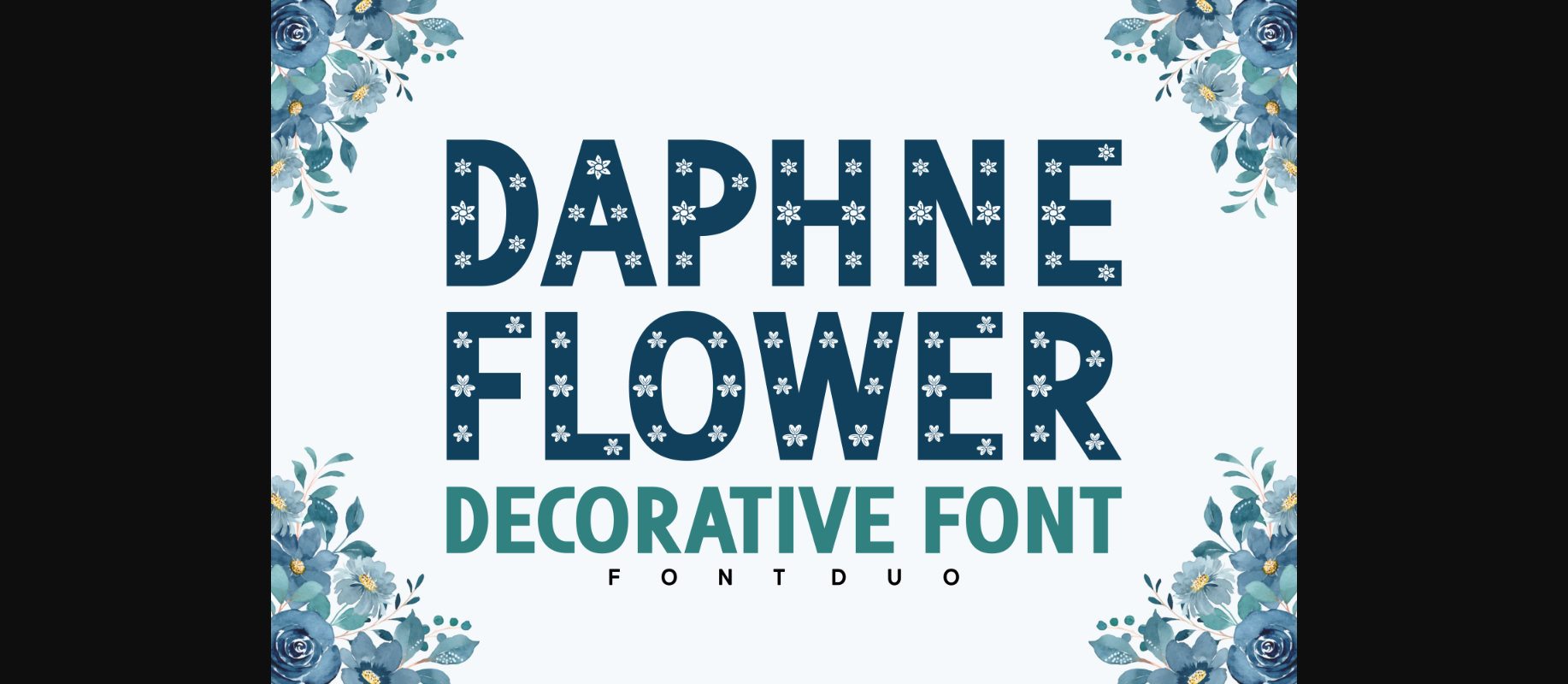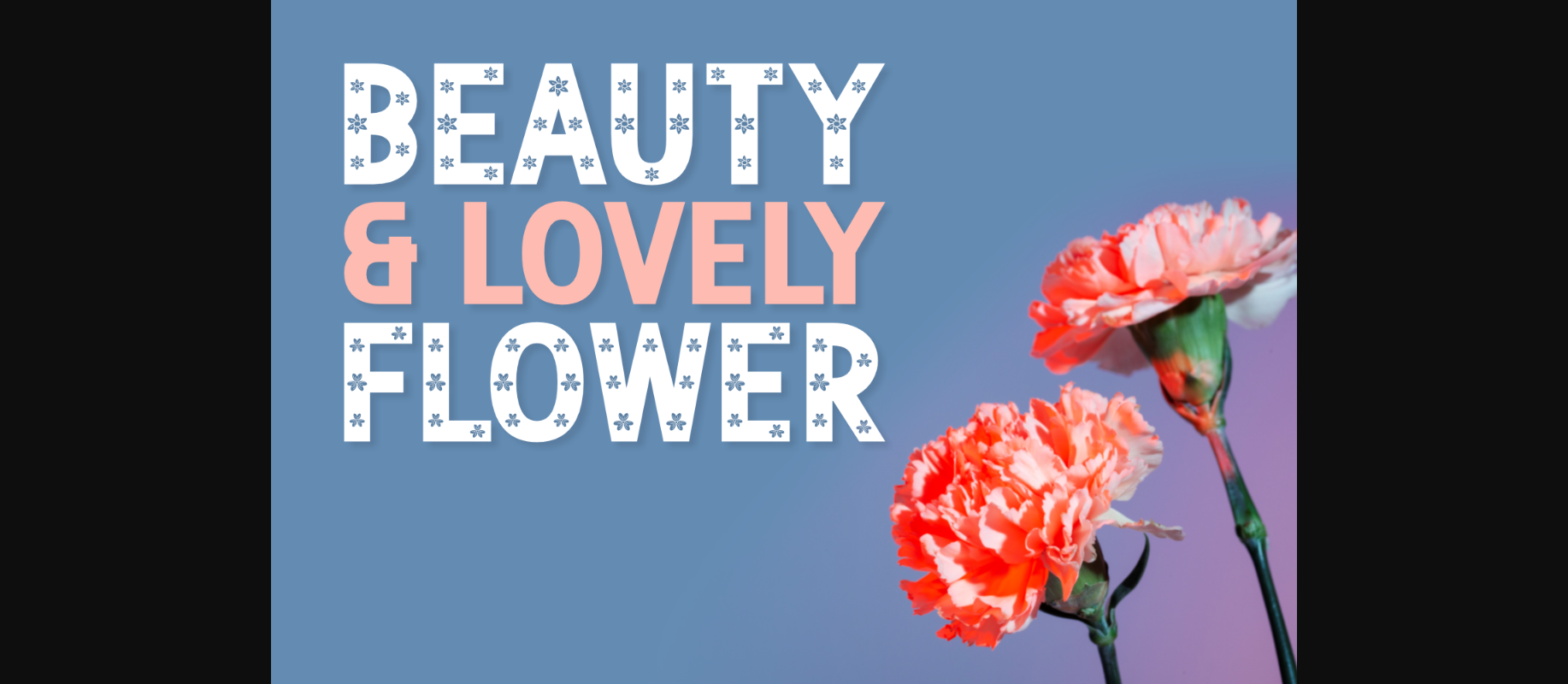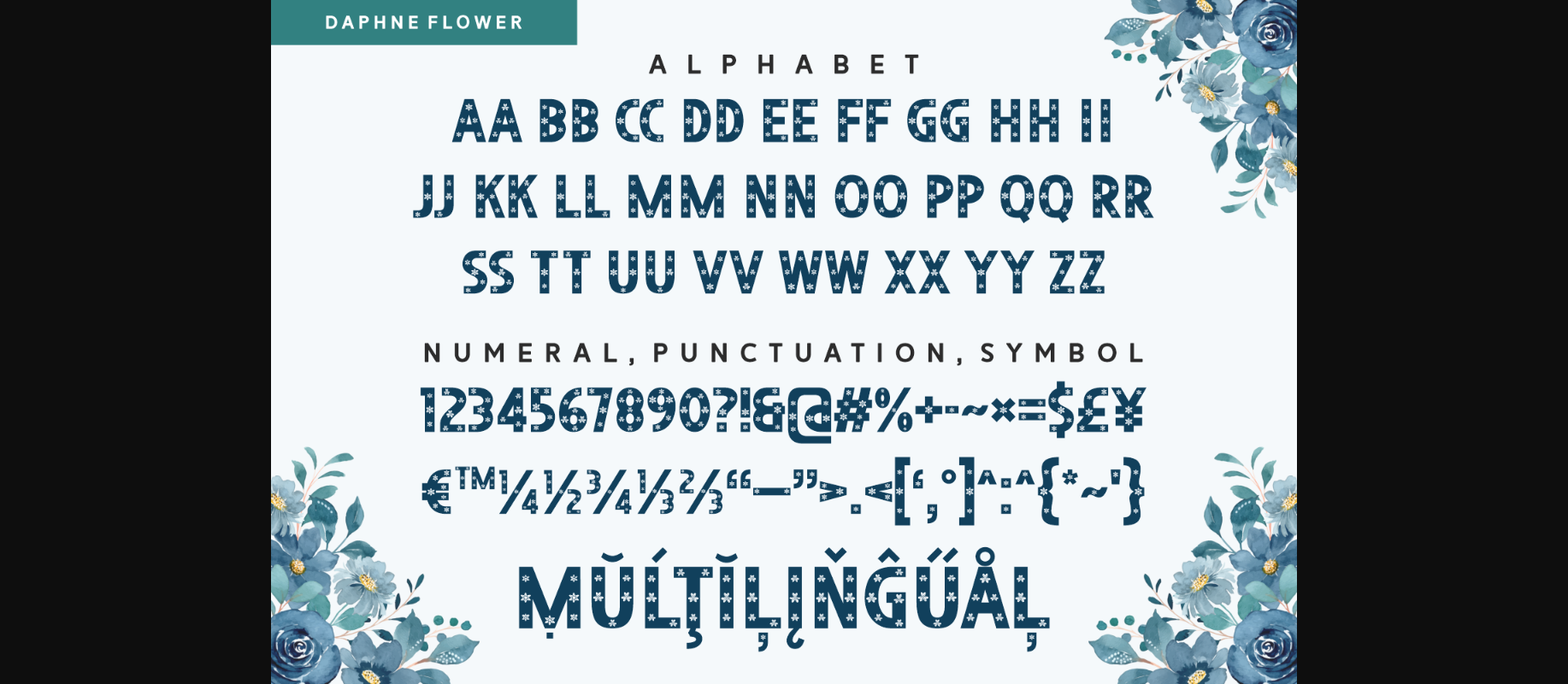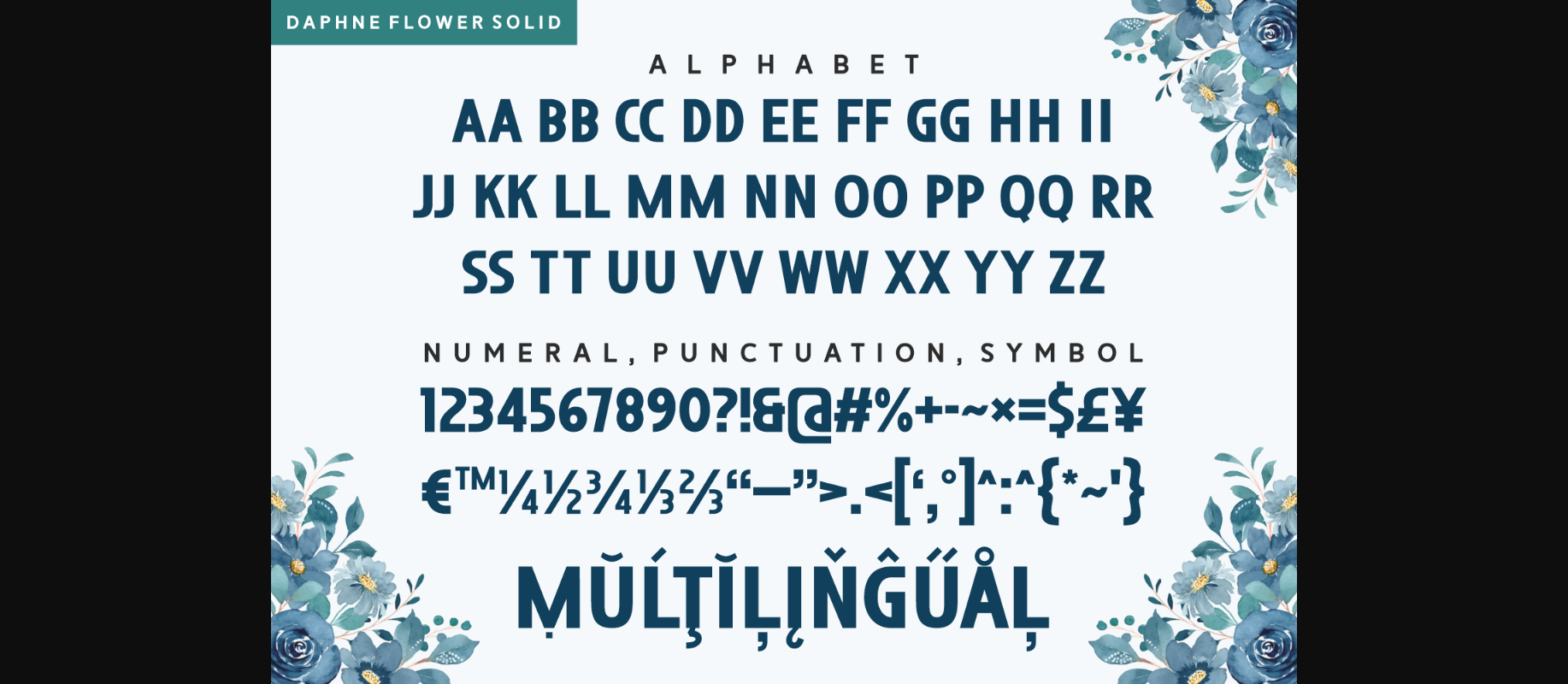
Daphne Flower Font
About Daphne Flower Font
Daphne Flower is a chic, quirky and trendy decorative font. It works well for various design ideas that require fun and jolly vibes.